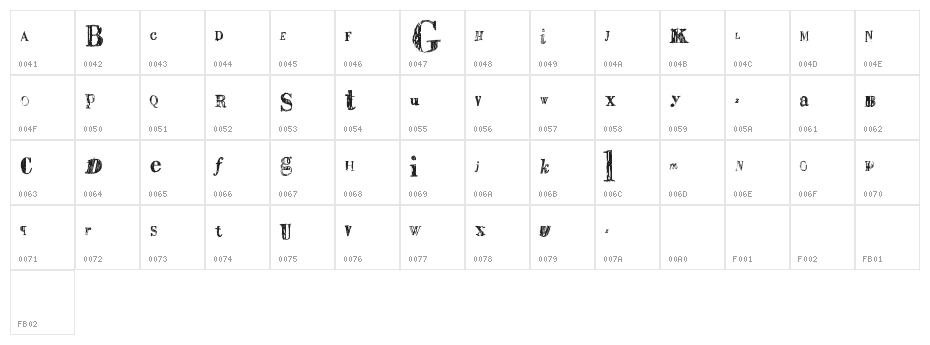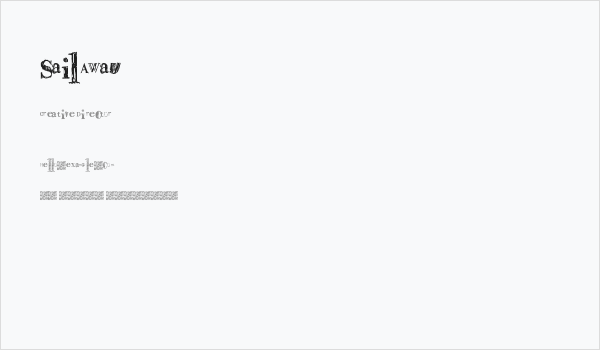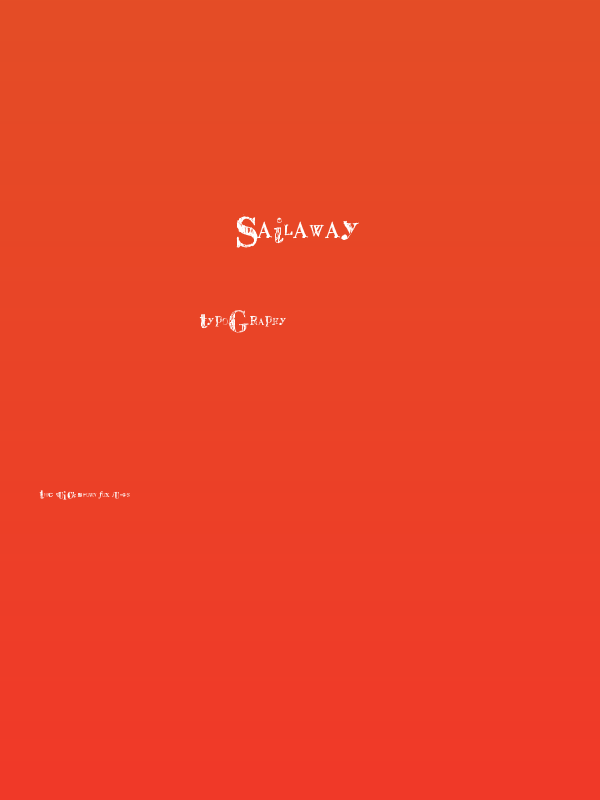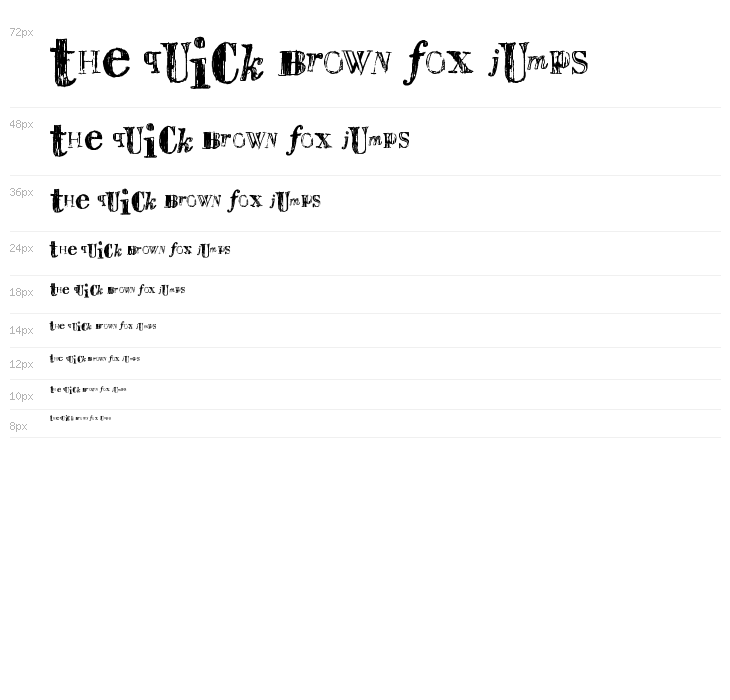
SailAway Font
SailAway Description
This font exhibits a whimsical and artistic style, characterized by its hand-drawn appearance and uneven, textured strokes. Each letter has a unique, sketch-like quality, giving it a playful and informal feel. The uppercase letters are bold and prominent, while the lowercase letters maintain a consistent yet varied design. The font's irregularities and artistic flair make it stand out, providing a sense of creativity and individuality. It is suitable for projects that aim to convey a sense of fun, creativity, and artistic expression.
| Overall Style | Artistic, Playful |
| Use Case | Headlines, Posters, Creative Branding |
| Proposed Projects | Ideal for creative projects such as children's book covers, artistic posters, and playful branding materials. |